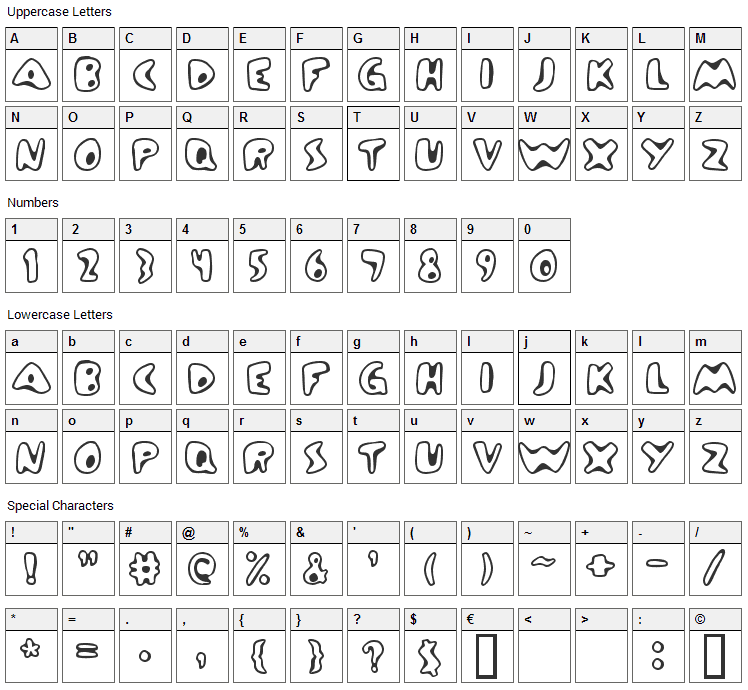
(All keyboard characters, some foreign and special) is a cartoony display font inspired by the wonders of static operational semantics inference rules. All the keyboard characters are available and more, but the capital and lowercase letters are the same. I think this font is really nice; enjoy! (9 March 1999)
- Font Name:Zinc Boomerang
- Manufacturer:[Divide By Zero]
- Designer:Tom Murphy 7